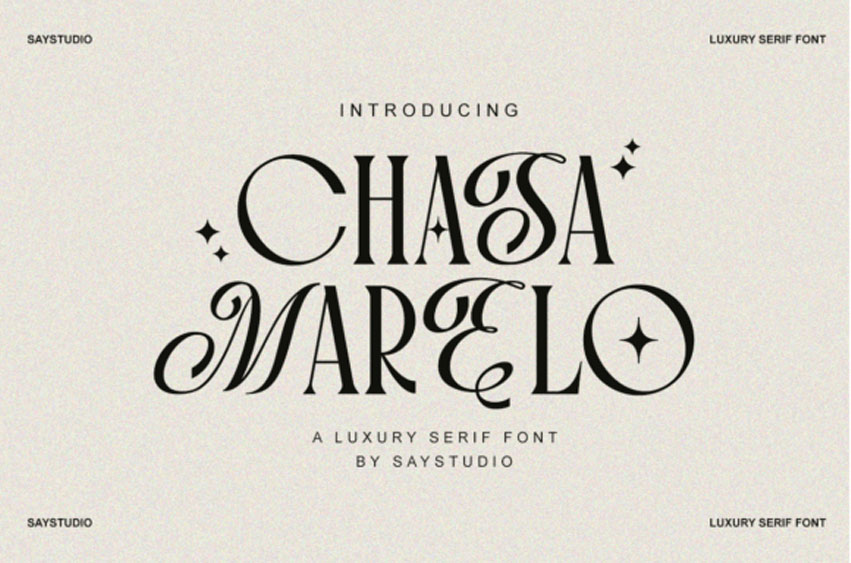
Chasa Marelo Font
Chasa Marelo Font is a luxury branding company that focuses on creating elegant and stylish designs. They specialize in serif fonts, which give a classic and sophisticated look to their brands.
With attention to detail and a commitment to quality, Chasa Marelo helps businesses stand out and convey a sense of luxury and refinement.